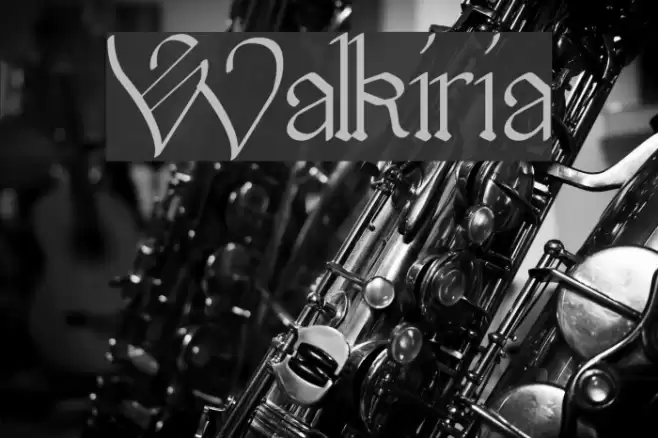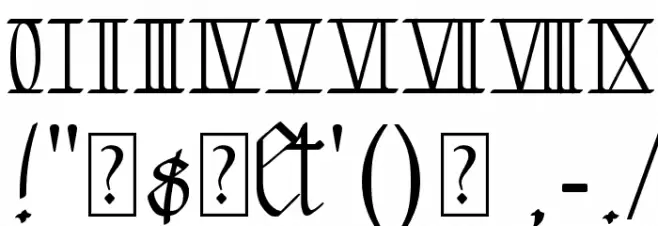
Walkiria Font
Walkiria Description
This font exhibits a striking blackletter style, characterized by its intricate and ornate design. The uppercase letters are highly decorative, with sharp angles and elaborate flourishes that evoke a sense of historical elegance. The lowercase letters maintain a similar aesthetic, though they are slightly more simplified for readability. The numerals are styled with a consistent blackletter theme, ensuring uniformity across the typeface. Special characters are also included, each designed to complement the overall gothic appearance. This font is ideal for projects that require a touch of medieval or vintage flair, such as historical documents, themed event invitations, or branding for products that wish to convey a sense of tradition and craftsmanship.
A decorative blackletter font with intricate, gothic-inspired designs from Gothic fonts.
- Proposed Projects: Ideal for historical documents, themed event invitations, or vintage branding.
- Overall Style: Vintage
- Use Case: Logos, Headlines